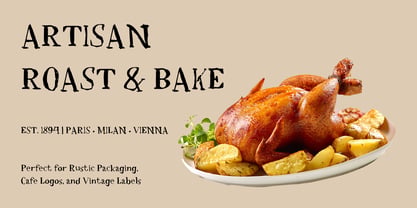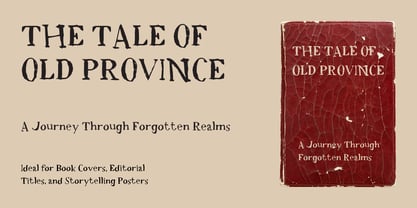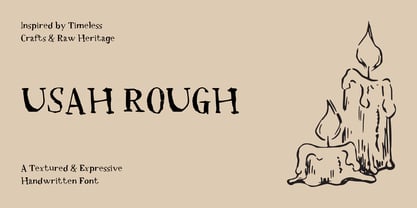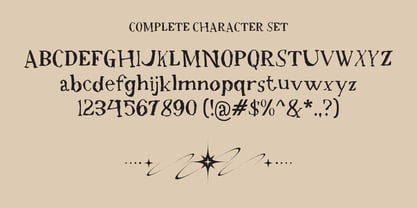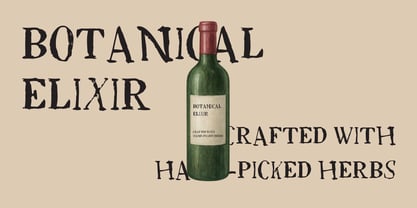
Usah Rough
by Kalam
The Usah Rough Font Family was designed by Wahyu Eka Prasetya, Moch Zamroni and published by Kalam. Usah Rough contains 2 styles and family package options. More about this family
Add grit, energy, and unpolished authenticity to your visual work with Usah Rough. Designed as an expressive handwritten typeface with a textured edge, Usah Rough delivers a warm, human touch paired with a bold, tactile personality.
Design Concept & Inspiration
Usah Rough was created to mimic the raw look of ink on textured paper and quick marker strokes. It balances a relaxed handwriting style with an edgy, weathered look—perfect for designers who want to steer away from clean digital shapes and lean into organic, hand-drawn aesthetics.
Ideal Design Uses
Usah Rough works exceptionally well across a broad range of creative projects:
- Apparel & Streetwear: Great for t-shirt graphics, hoodies, caps, and urban lifestyle merchandise.
- Packaging & Labels: Adds a craft, rustic feel to coffee packaging, bakery labels, craft beer bottles, and artisanal products.
- Editorial & Music: Ideal for indie zine headers, book covers, album artwork, podcast logos, and event posters.
- Social Media & Quotes: Perfect for striking Instagram overlays, YouTube thumbnails, and motivational quote graphics.
- Branding & Logos: Gives a unique, approachable identity to cafes, creative studios, and outdoor adventure brands.
Key Features & Pairing Suggestions
- Textured Rough Finish: Preserves realistic ink-and-paper stroke details for a genuine handmade feel.
- Extended Multilingual Support: Features accented characters and extended Latin glyphs for seamless global design use.
- Complete Character Set: Includes uppercase, lowercase, numbers, punctuation, and essential symbols.
- Effortless Font Pairing: Pairs brilliantly with clean, minimalist Sans-Serif fonts (like Montserrat or Futura) or classic Serif typefaces to balance the raw title text with legible body copy.
Give your creative ideas an authentic, textured voice with the distinct character of Usah Rough!
Designers: Wahyu Eka Prasetya, Moch Zamroni
Foundry: Kalam